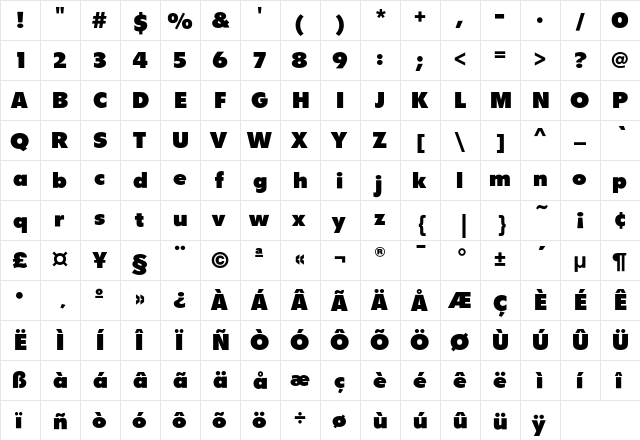
FlyerEF Bold
Design Context for FlyerEF Typeface
FlyerEF is a composed and adaptable typeface that performs quietly and consistently across a wide range of design contexts. The heavy weight commands attention and anchors typographic hierarchies.
Pro Tip: Pair FlyerEF with a font of contrasting weight or personality to build a more expressive typographic hierarchy.